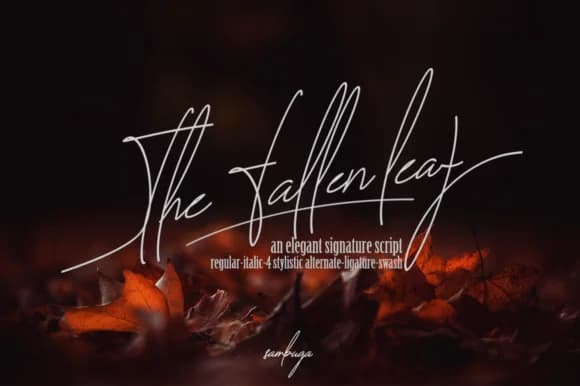
The Fallen Leaf by sambuga is a thin signature script with genuine handwritten character. This typeface brings personality to work that needs an intimate, considered touch without the heaviness of decorative scripts. Wedding invitation suites are a natural fit for this weight, as are luxury cosmetics and skincare packaging where restraint signals premium positioning. Handmade goods labels and boutique product packaging also benefit from its delicate presence, adding credibility without overshadowing the product itself.
The italic version expands your creative options across different layout needs and compositional approaches. Many designers pair this with clean serif or sans-serif typefaces to let the signature quality breathe as a focal point, rather than competing with other decorative elements. You'll find it works just as well at display sizes as it does in smaller applications, though it truly opens up when given room to shine.
If you're developing personal branding, event stationery, bespoke packaging designs, or any materials that need to feel handcrafted and intentional, this script fits the brief perfectly. The thin weight gives it sophistication that heavier scripts can't quite achieve. Pick up The Fallen Leaf on Creative Fabrica and see how it transforms your next project.
The Fallen Leaf Font is a script font that shines as a display or heading face. Pair it with a clean sans-serif or serif font for body text β the contrast creates a clear hierarchy while the two styles stay balanced and easy to read.
The Fallen Leaf Font